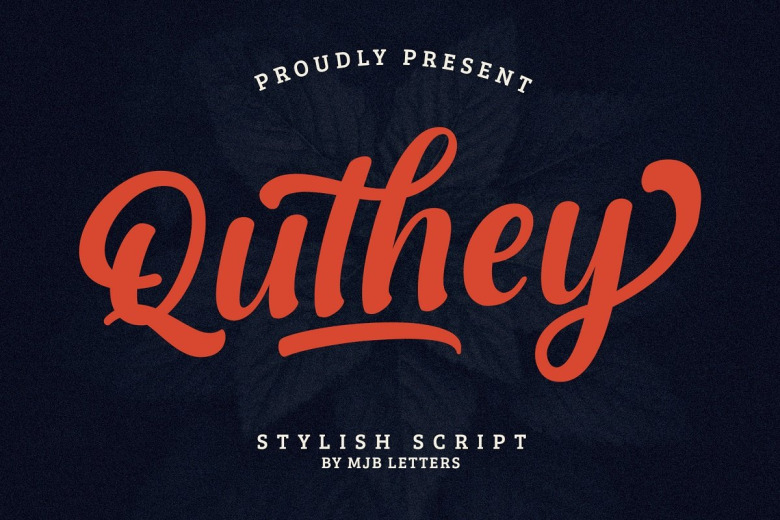
Quthey Font
Quthey is a beautiful, sophisticated and retro styled bold handwritten script, hand made with natural writing movement to give your headlines and logotype projects elegant touch. It has a strong, in your face, confident and dynamic appearance, and it can add loads of nostalgic personality to your designs. PUA encoded (Access all the fancy glyphs and swashes) with Quthey.
Quthey Bold Script Font